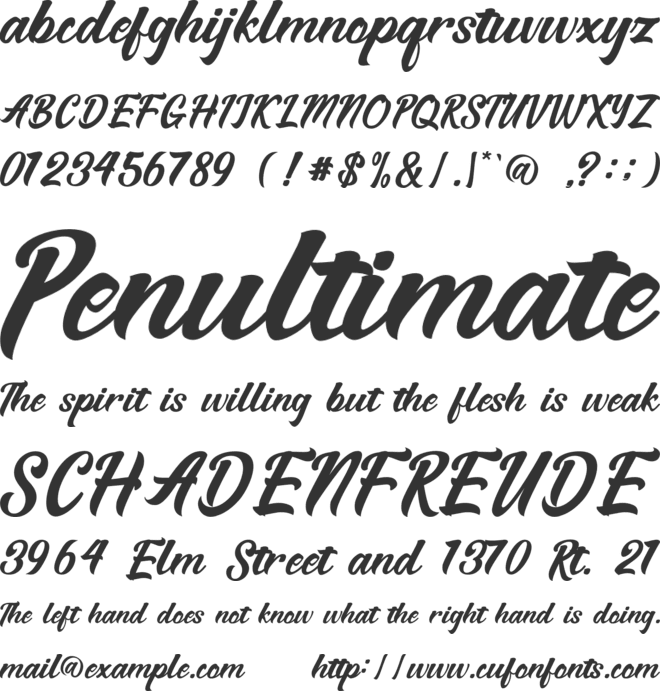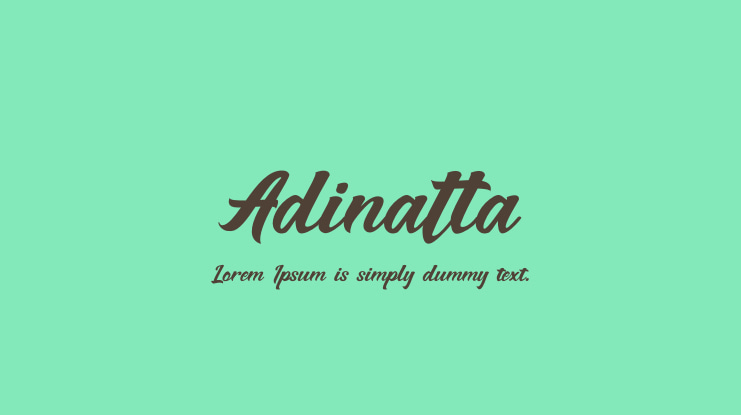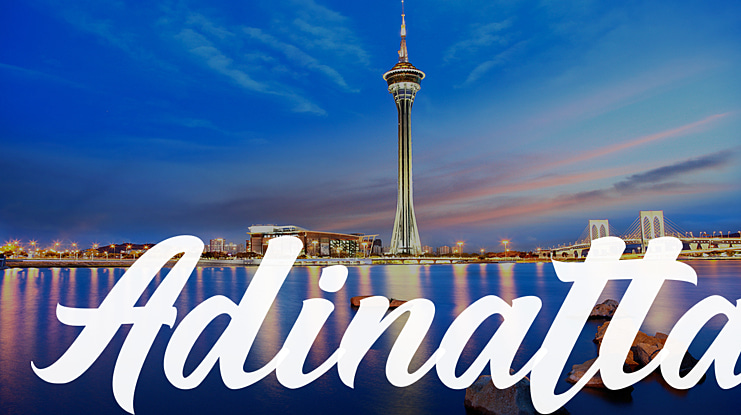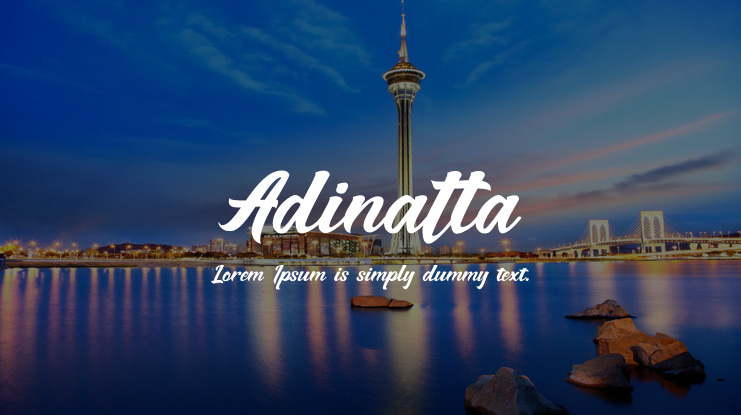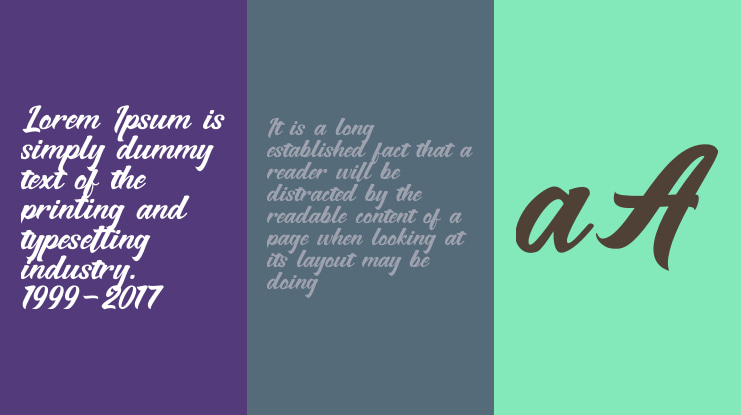
Adinatta Font
This font is a new modern, clean & fresh script with a lot of swashes and stylistic alternate, make this font looks elegant, natural, stylish and perfect for any awesome projects. It is suitable for branding, Poster Design, Event, logotype, product packaging, decoration, t-shirts, poster labels, etc.